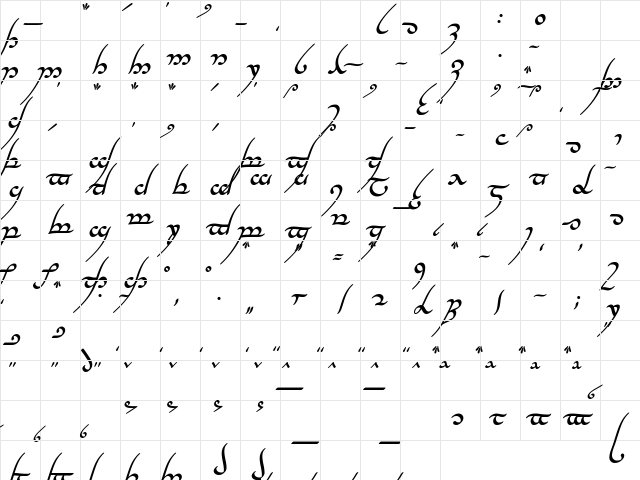
Tengwar Annatar Bold Italic Free Font
Tengwar Annatar Bold Italic
Designer: Johan Winge
Design Context for Tengwar Annatar
Tengwar Annatar is a composed and adaptable typeface that performs quietly and consistently across a wide range of design contexts. The slanted form adds forward momentum and visual energy. Its bold stroke weight gives it real presence on the page.